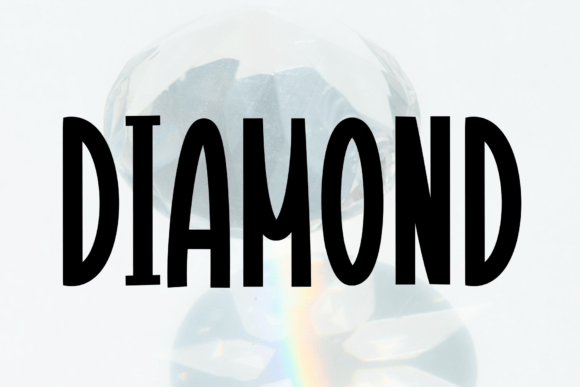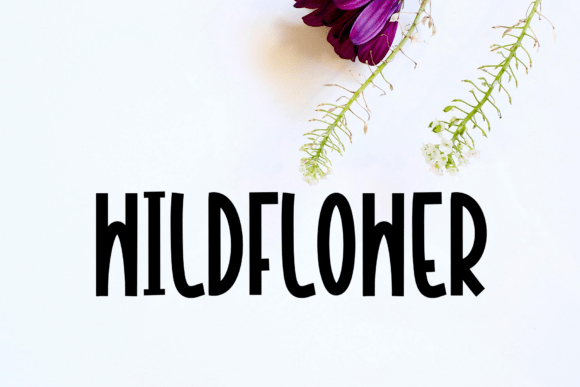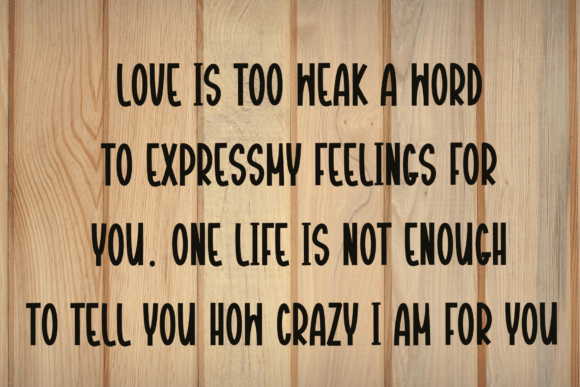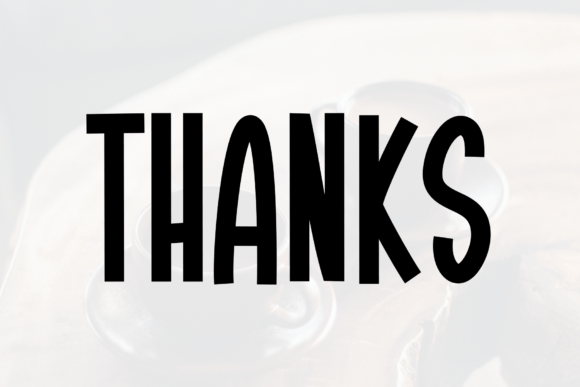
The Sweet Spot: Discovering the Charm of Chocolate Font
I’ll never forget the time I was working on a wedding invitation project, and my client asked for a font that was both elegant and casual. I scoured the internet, tried out dozens of fonts, but nothing seemed to fit the bill. That was until I stumbled upon Chocolate Font. It was like a breath of fresh air – handwritten, yet sophisticated; playful, yet refined. In this article, I’ll share my love for Chocolate Font, its features, and how to make the most of it in your designs.
So, what makes Chocolate Font so special? Here are a few things I love about it:
- ✨ Relaxed and sporty feel: Chocolate Font has a unique, laid-back vibe that’s perfect for designs that need a bit of personality.
- ✅ Elegant yet casual: It’s the perfect blend of sophistication and playfulness, making it suitable for a wide range of projects.
- 💕 Handwritten charm: The font’s handwritten feel adds a touch of warmth and humanity to any design.
Of course, no font is perfect, and Chocolate Font has a few quirks:
- 🤔 Limited use in very formal designs: While Chocolate Font is elegant, it may not be the best choice for very formal or traditional designs.
- ⚠️ Some letters may require manual kerning: As with any font, you may need to adjust the kerning of certain letters to get the best results.
- Experiment with OpenType features like ligatures and stylistic alternates to add some extra flair to your design.
The Story Behind Chocolate Font
Chocolate Font was designed with the intention of creating a font that was both elegant and casual. The designer wanted to craft a font that would be perfect for designs that needed a touch of sophistication, yet still felt approachable and friendly. The result is a font that’s perfect for branding, logos, wedding supplies, greeting cards, and more.
- Q: What type of designs is Chocolate Font best suited for?
- A: Chocolate Font is perfect for designs that need a relaxed, sporty feel, such as branding, logos, wedding supplies, greeting cards, fashion, lookbooks, and marketing promotions.